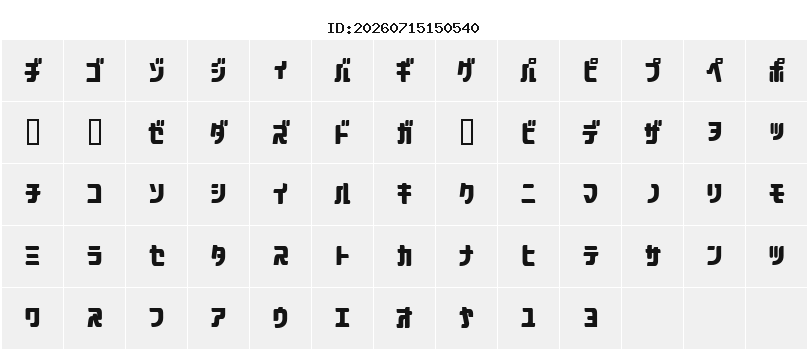
• Font Name: aquasky 2.0KAT
About aquasky 2.0KAT.ttf
aquasky 2.0KAT.ttf is a modern, elegant sans-serif font designed for ultimate readability and visual harmony. Perfect for branding, headlines, web design, and print materials.